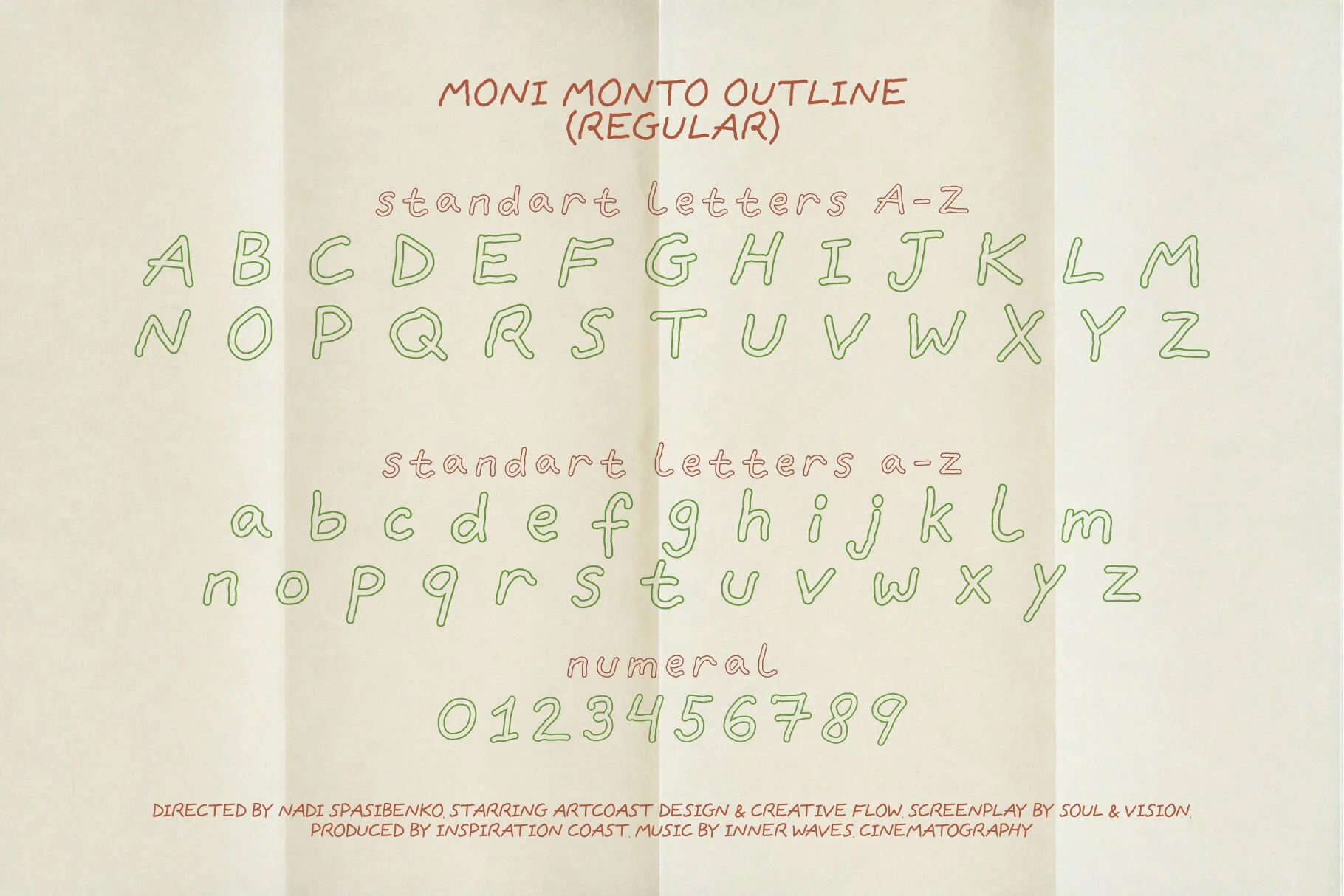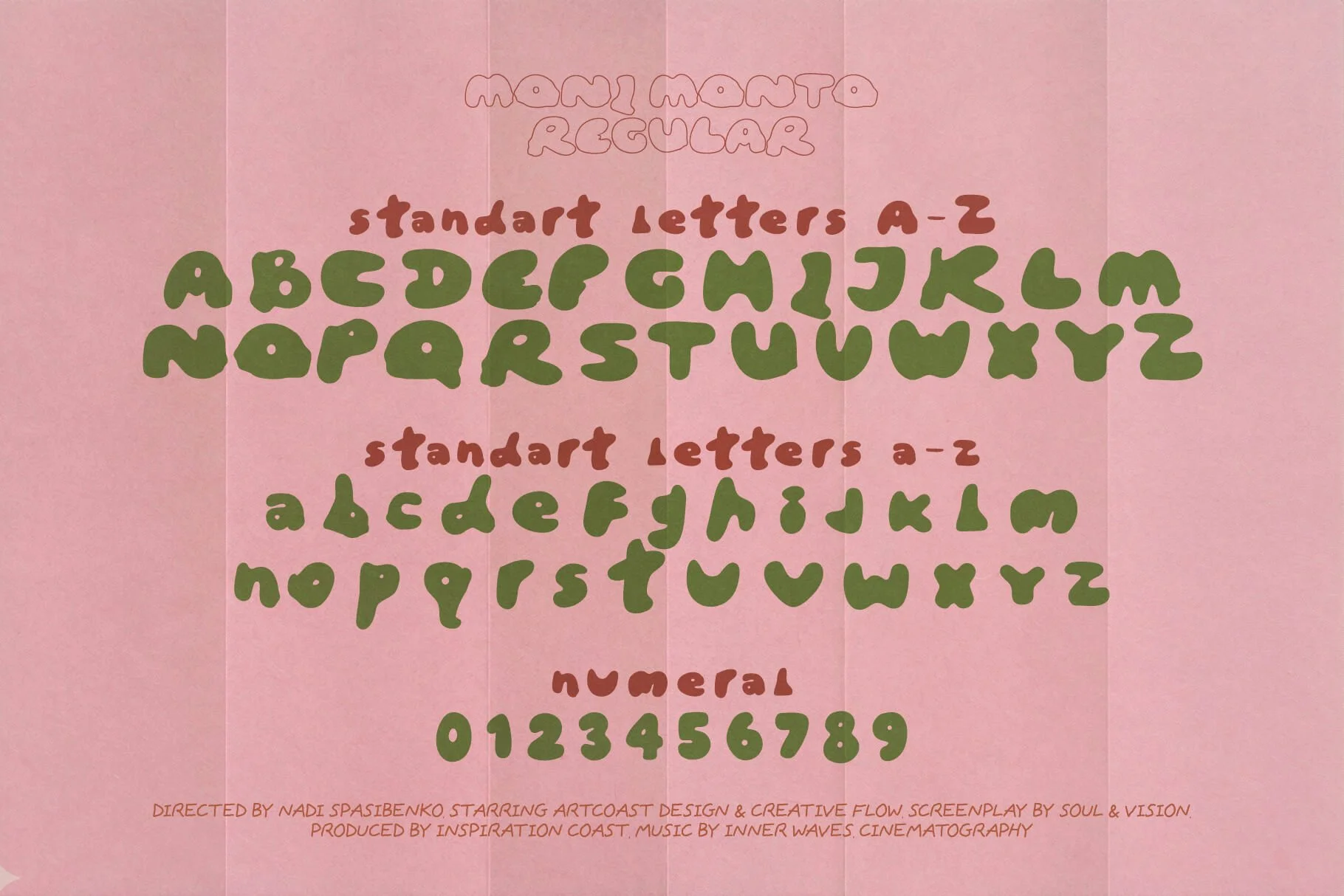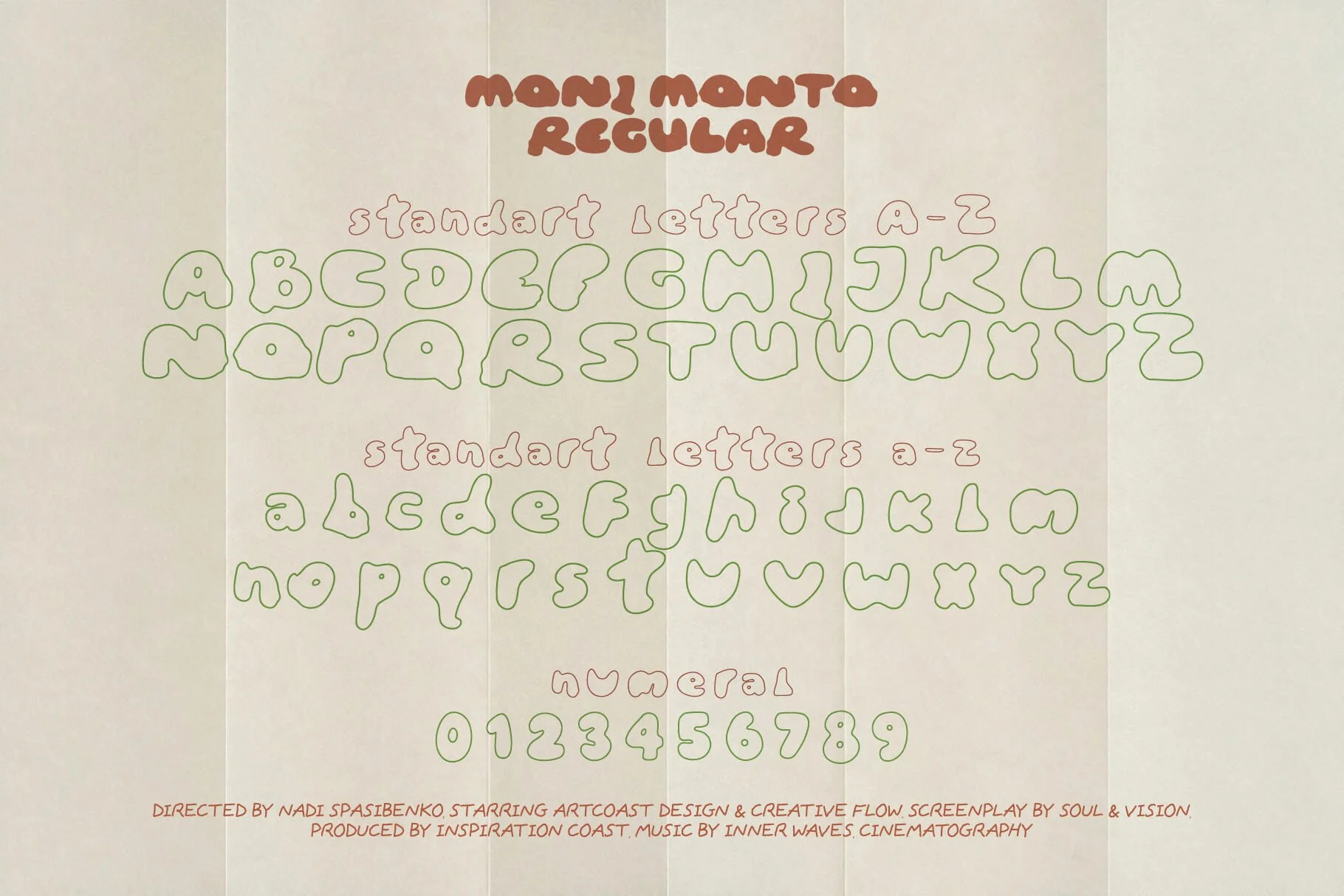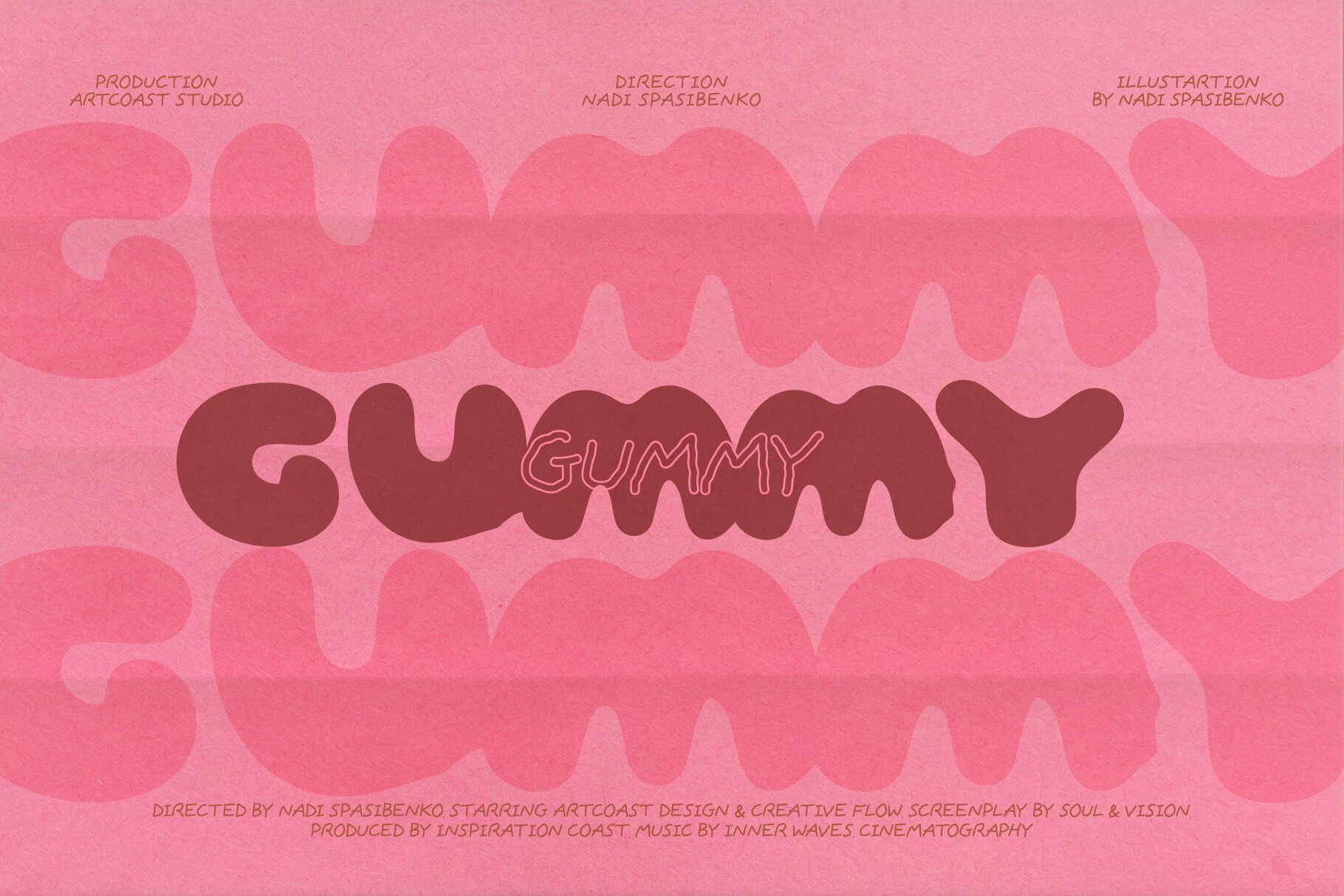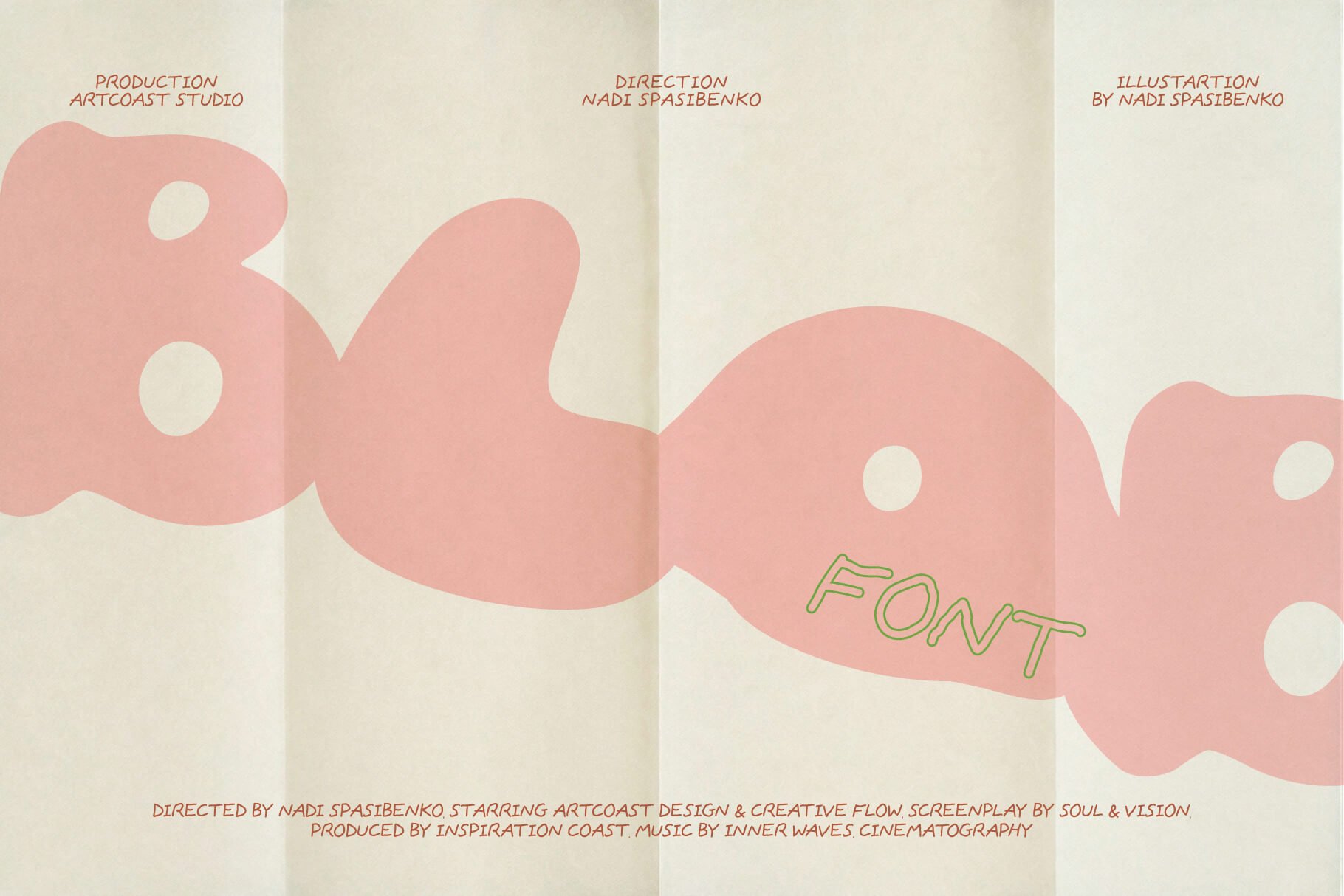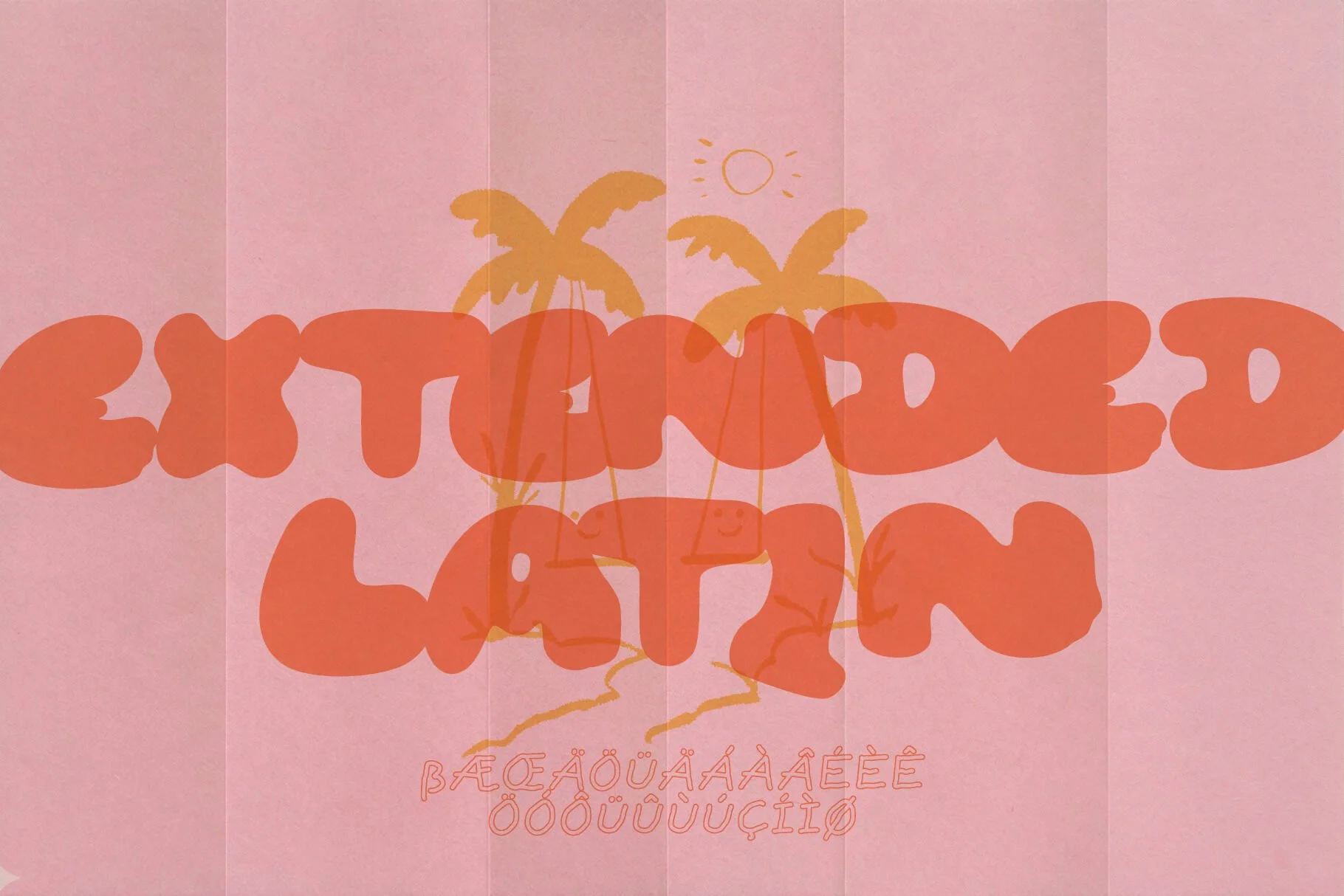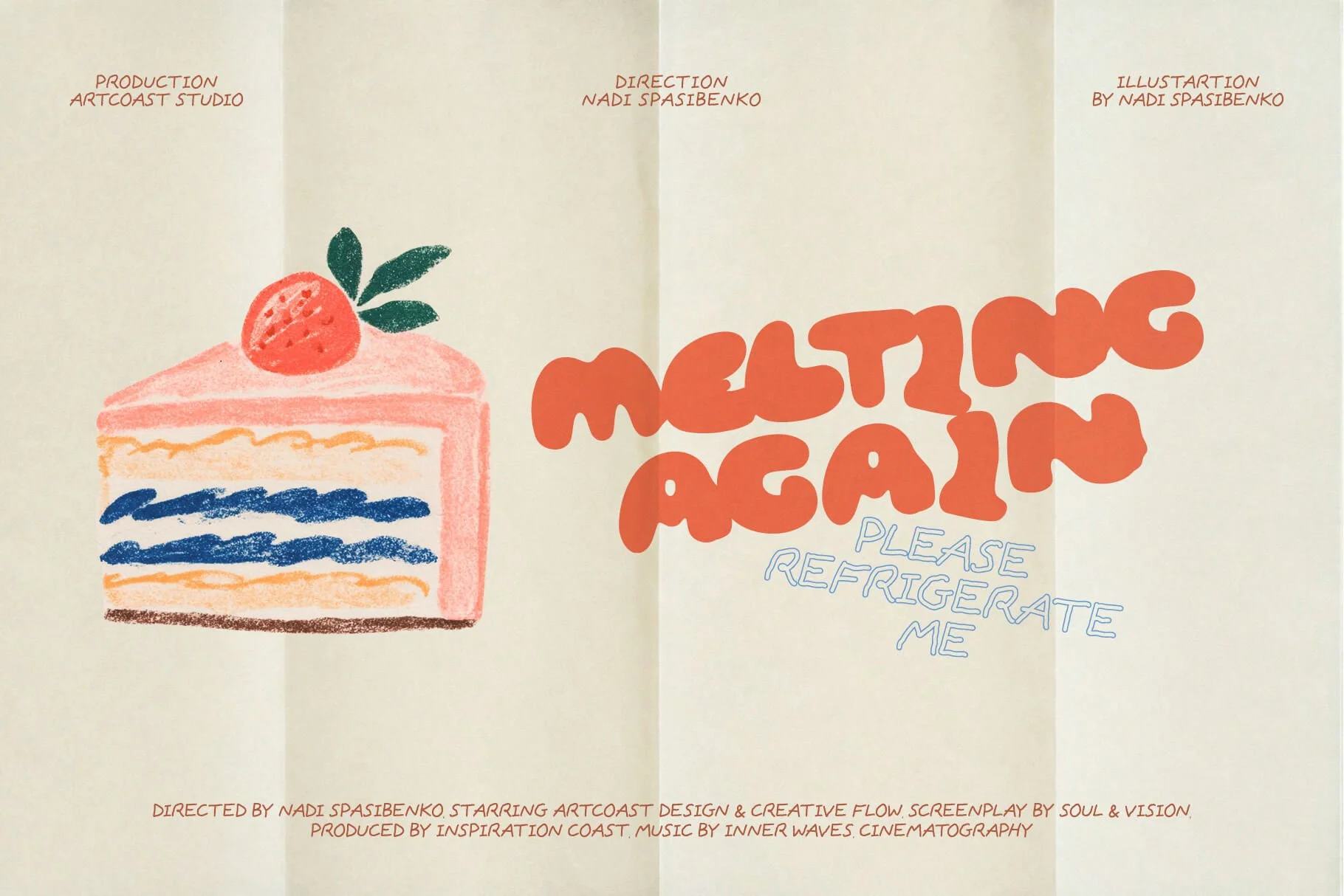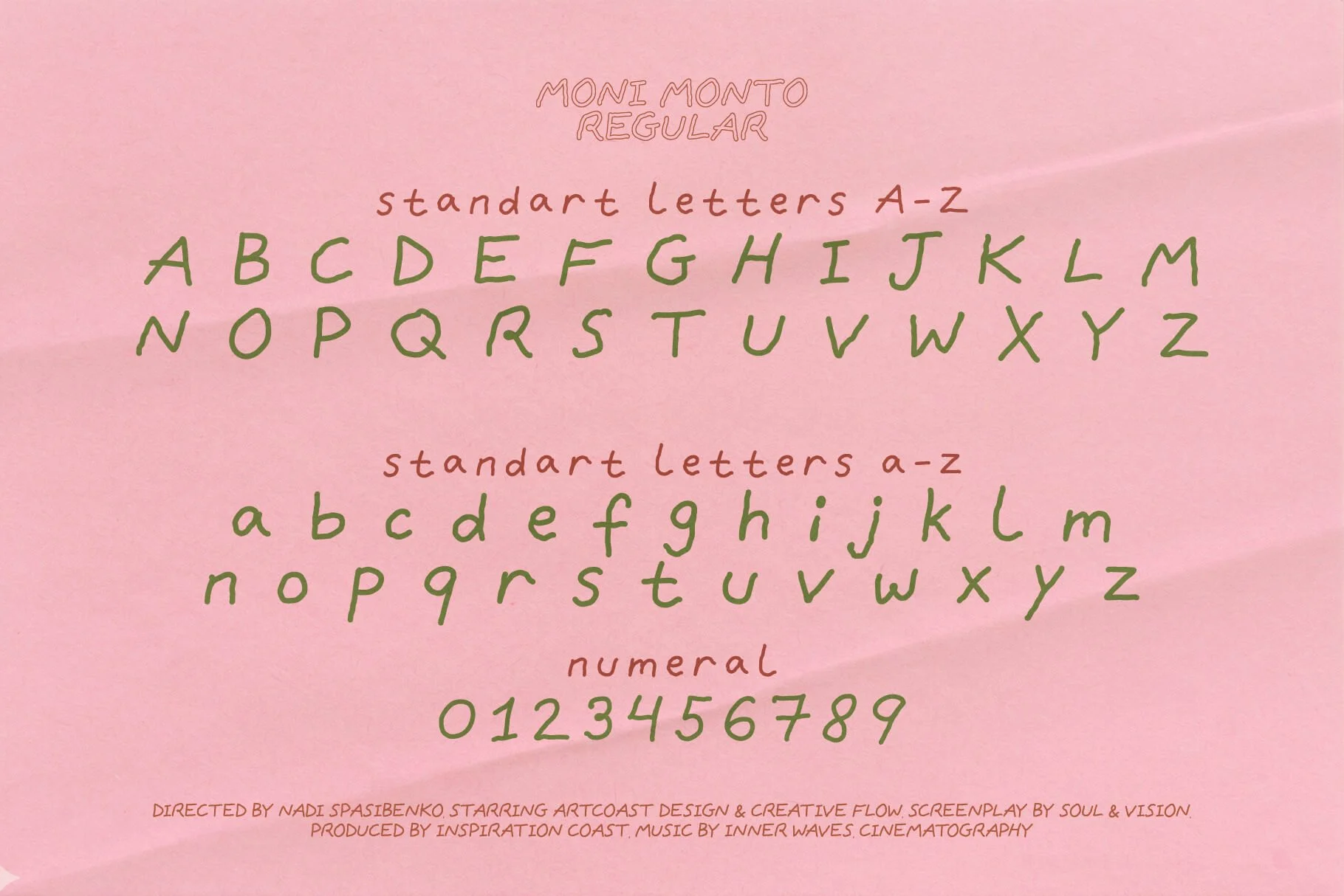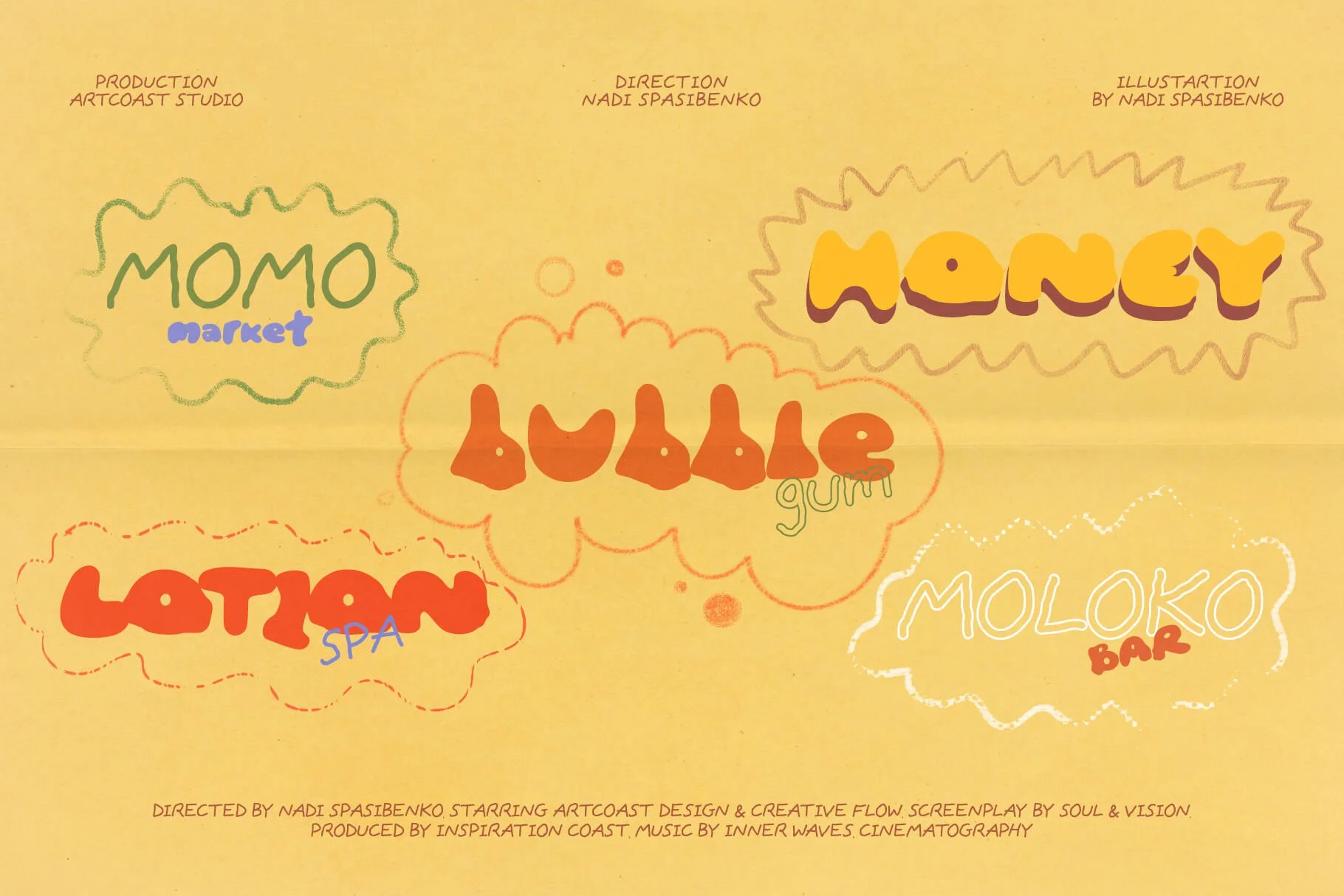
Moni Monto — Playful & Groovy Font Duo
Inject a dose of pure joy and retro-vibes into your next project with Moni Monto. This playful font duo is all about soft curves, "melting" shapes, and that effortless hand-drawn charm that’s taking the design world by storm.
Inspired by the bubbly aesthetic of the 70s and the Y2K revival, Moni Monto is designed to look as sweet as candy and as fluid as liquid gold. Whether you’re working on a bold brand identity or eye-catching social media graphics, this duo brings a unique, high-energy personality to every canvas.
The Perfect Match
Moni Monto includes two distinct styles designed to work in harmony:
Moni Monto Regular (Solid): A bold, chunky, and "squishy" weight. Perfect for making a statement in headers and logos.
Moni Monto Outline: A light, airy, and rhythmic companion. It adds a layer of sophistication and contrast when paired with the solid version.
Global Ready: Extended Latin Support
We know your projects have no borders. Moni Monto features an Extended Latin character set, ensuring full support for most European languages. From French and Spanish to Scandinavian languages, your message remains consistent and stylish.
Full Uppercase & Lowercase alphabet
Numbers & Essential Punctuation
Multilingual Support (Extended Latin)
Ideal For:
Branding & Logos: Especially for cafes, lifestyle brands, and creative studios.
Packaging Design: Give your products a friendly, approachable look.
Apparel & Merch: Perfect for t-shirt prints and stickers.
Digital Content: Stand out on Instagram, TikTok, and web banners.